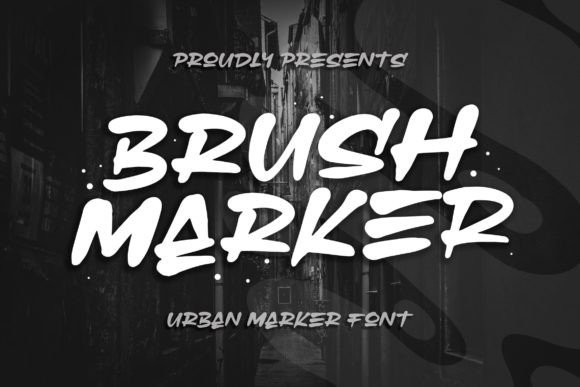
Brush Marker Font: A Unique and Captivating Design for Creative Projects
The Brush Marker font is a distinctive and expressive typeface that mimics the original strokes of a marker, offering a fresh and captivating design for various creative projects. This font is specifically crafted to maintain all letters in uppercase (all caps), exuding a strong and assertive yet expressive feel. In this article, we will explore the features, benefits, and applications of the Brush Marker font, highlighting its potential to elevate logotypes, displays, branding, and corporate design.
Inspiration from Marker Strokes
The Brush Marker font draws direct inspiration from marker strokes, imbuing each letter with a distinctive touch and organic character. The font’s design is rooted in the natural flow and movement of a marker, resulting in a unique and captivating aesthetic. This distinctive feature makes Brush Marker an excellent choice for designers seeking to add a personal and creative touch to their work.
Key Features of Brush Marker Font
The Brush Marker font boasts several key features that make it an attractive option for designers:
- Uppercase and Lowercase Letters: The combination of uppercase and lowercase letters in Brush Marker offers broad flexibility in design exploration. Designers can create intriguing contrasts between the bold uppercase parts and the softer lowercase elements, achieving a visually harmonious result.
- Unique and Expressive Design: The font’s distinctive strokes and organic character make it perfect for logotypes, striking displays, memorable branding, and corporate design needs.
- All Caps: Brush Marker is crafted to maintain all letters in uppercase (all caps), delivering a strong and assertive yet expressive feel.
Applications of Brush Marker Font
The Brush Marker font is versatile and can be applied to various design projects, including:
- Logotypes: The font’s unique and expressive design makes it an excellent choice for logotypes that require a distinctive and memorable touch.
- Striking Displays: Brush Marker is perfect for creating eye-catching displays, such as posters, billboards, and digital ads.
- Memorable Branding: The font’s distinctive strokes and organic character make it ideal for branding projects that require a unique and captivating design.
- Corporate Design: Brush Marker can be used in corporate design projects, such as business cards, letterheads, and brochures, to add a touch of personality and creativity.
Benefits of Using Brush Marker Font
The Brush Marker font offers several benefits to designers, including:
- Unique Design: The font’s distinctive strokes and organic character make it stand out from other typefaces, providing a fresh and captivating design.
- Flexibility: The combination of uppercase and lowercase letters in Brush Marker offers broad flexibility in design exploration.
- Expressive Feel: The font’s strong and assertive yet expressive feel makes it perfect for designers seeking to add a personal and creative touch to their work.
Tips for Using Brush Marker Font
To get the most out of the Brush Marker font, consider the following tips:
- Experiment with Contrasts: Take advantage of the font’s uppercase and lowercase letters to create intriguing contrasts and achieve a visually harmonious result.
- Use for Display Purposes: Brush Marker is perfect for display purposes, such as headings, titles, and captions.
- Pair with Other Fonts: Consider pairing Brush Marker with other fonts to create a unique and captivating design.
The Brush Marker font is a unique and captivating design that embodies the original strokes of a marker. With its distinctive touch and organic character, this font is perfect for logotypes, striking displays, memorable branding, and corporate design needs. By understanding the features, benefits, and applications of Brush Marker, designers can unlock its full potential and create stunning designs that leave a lasting impression.